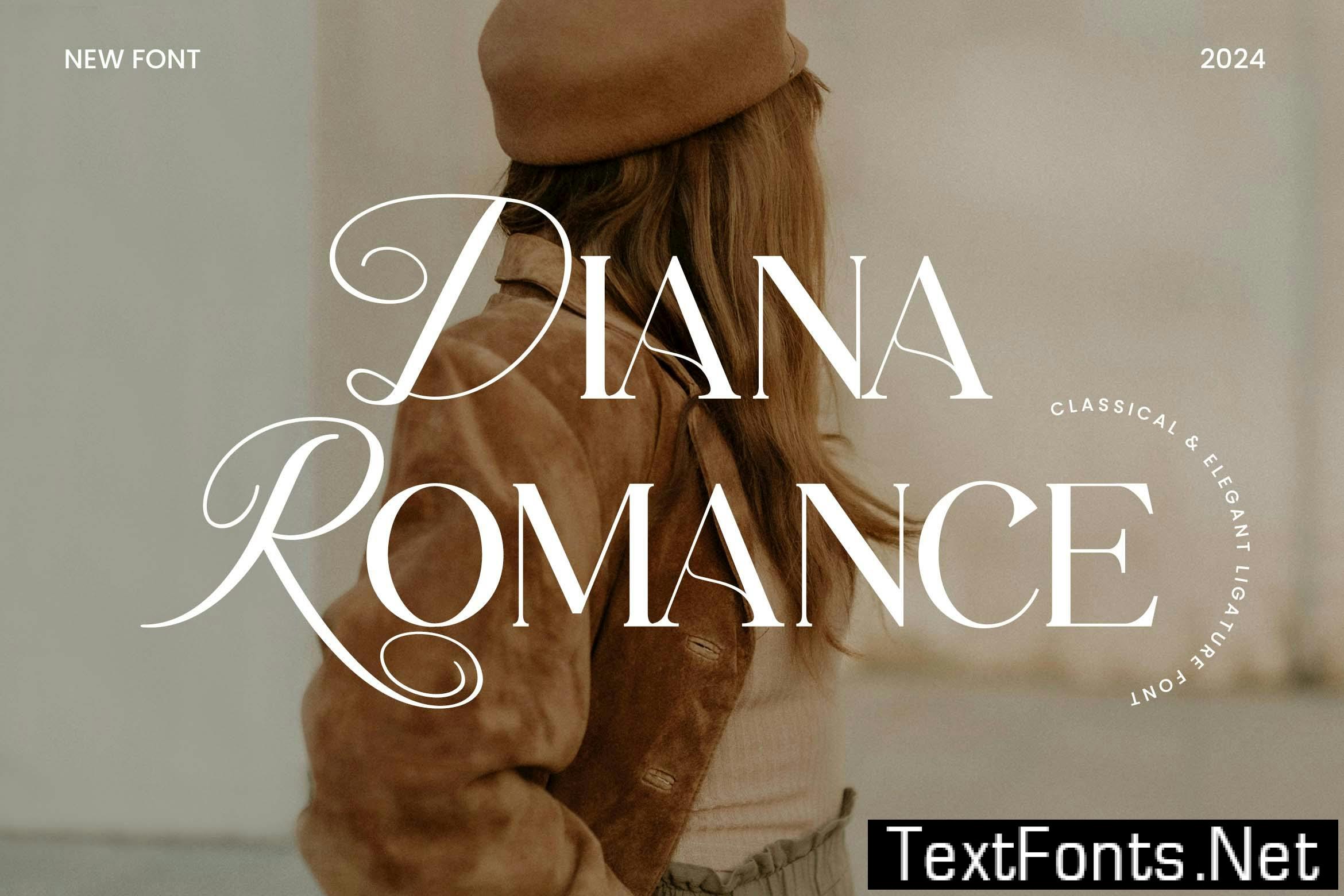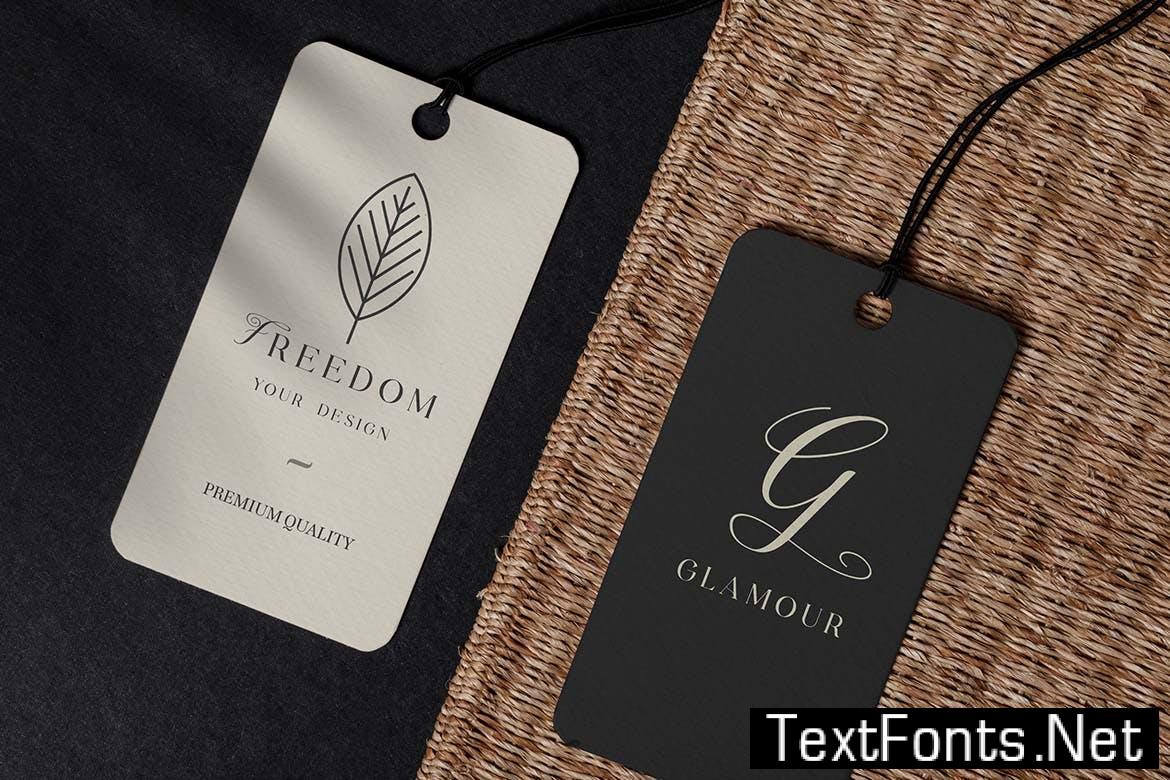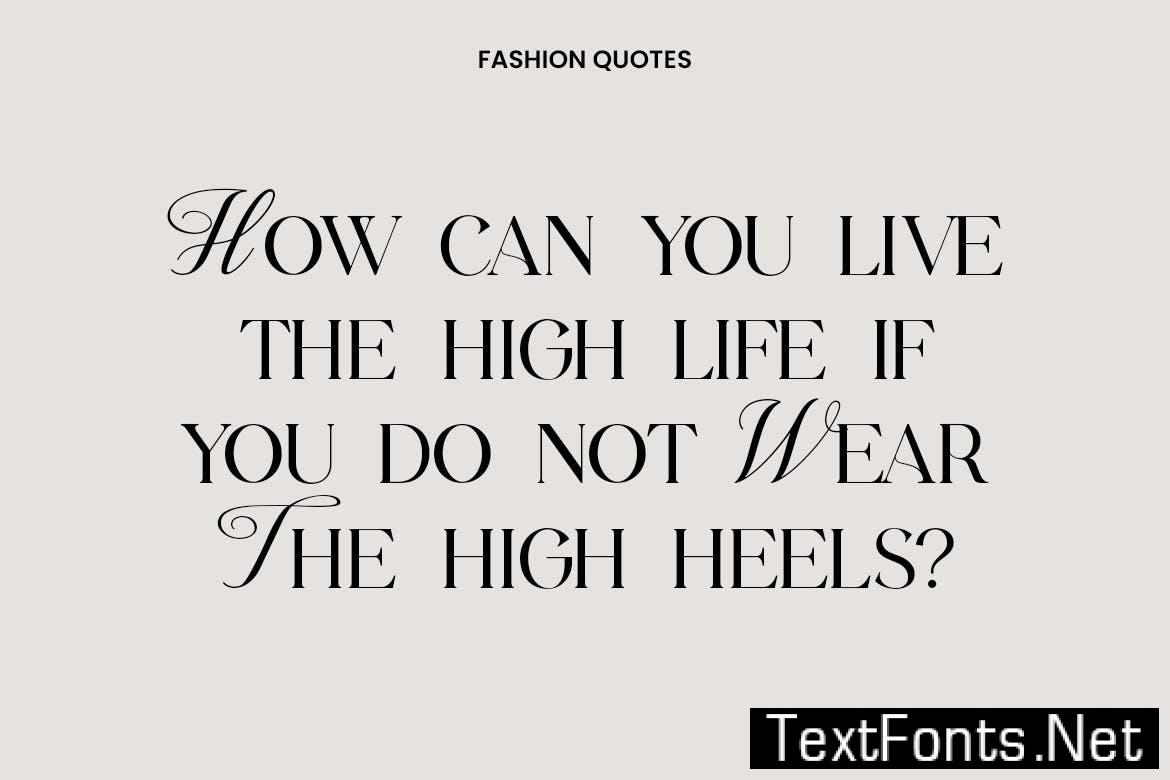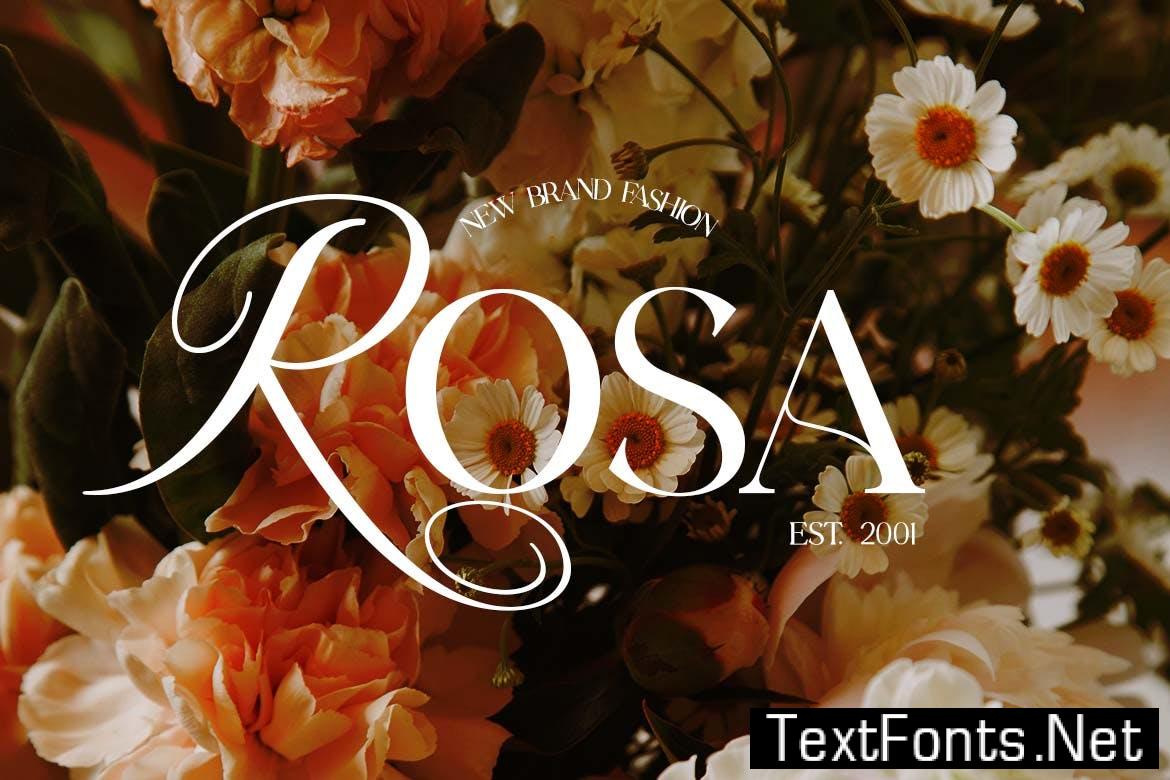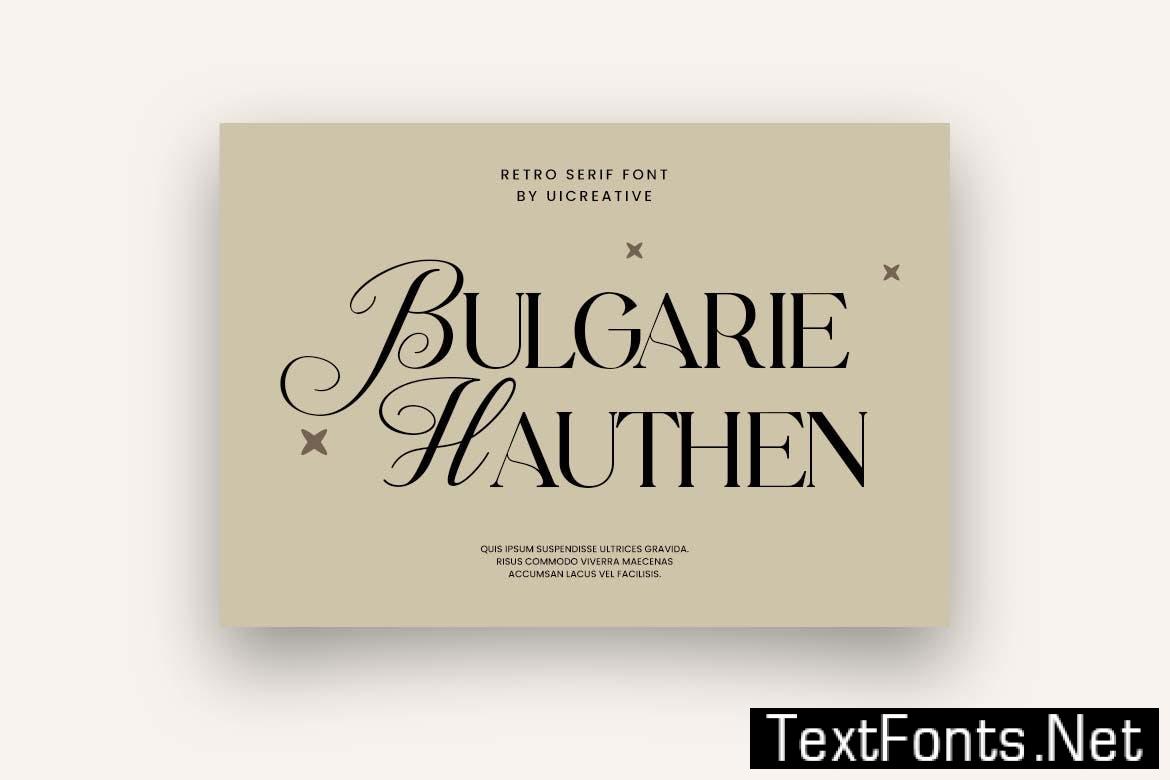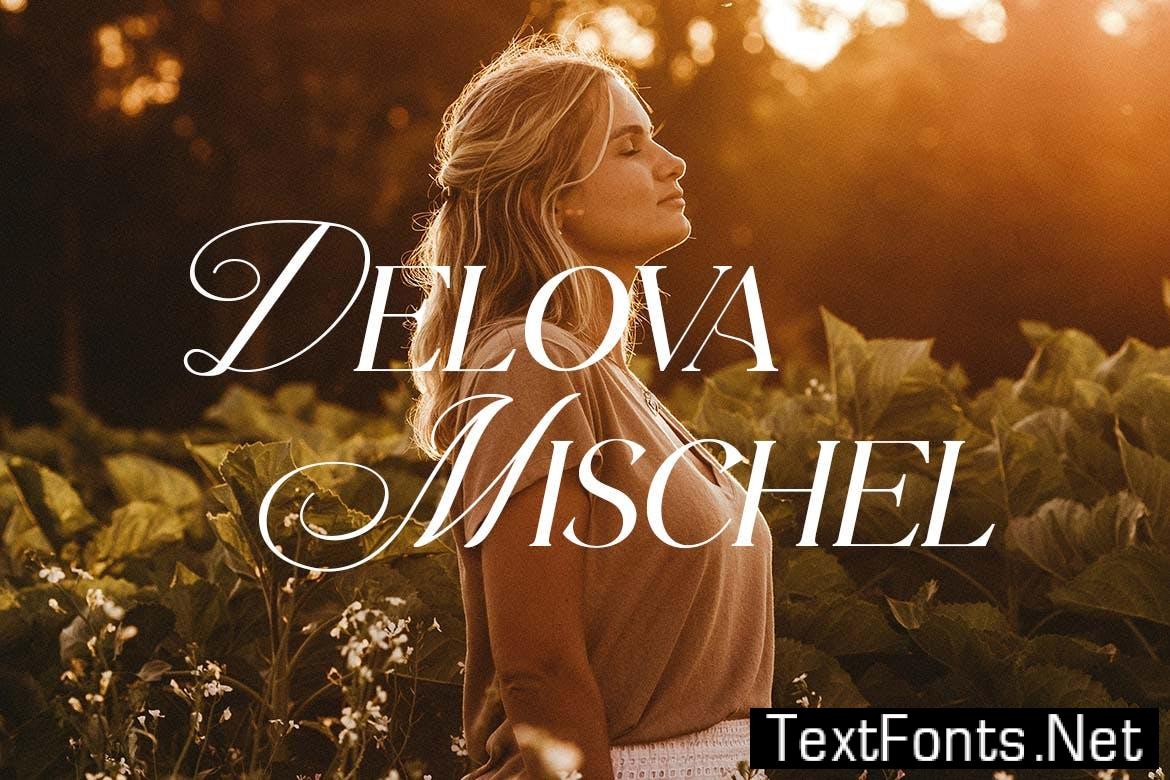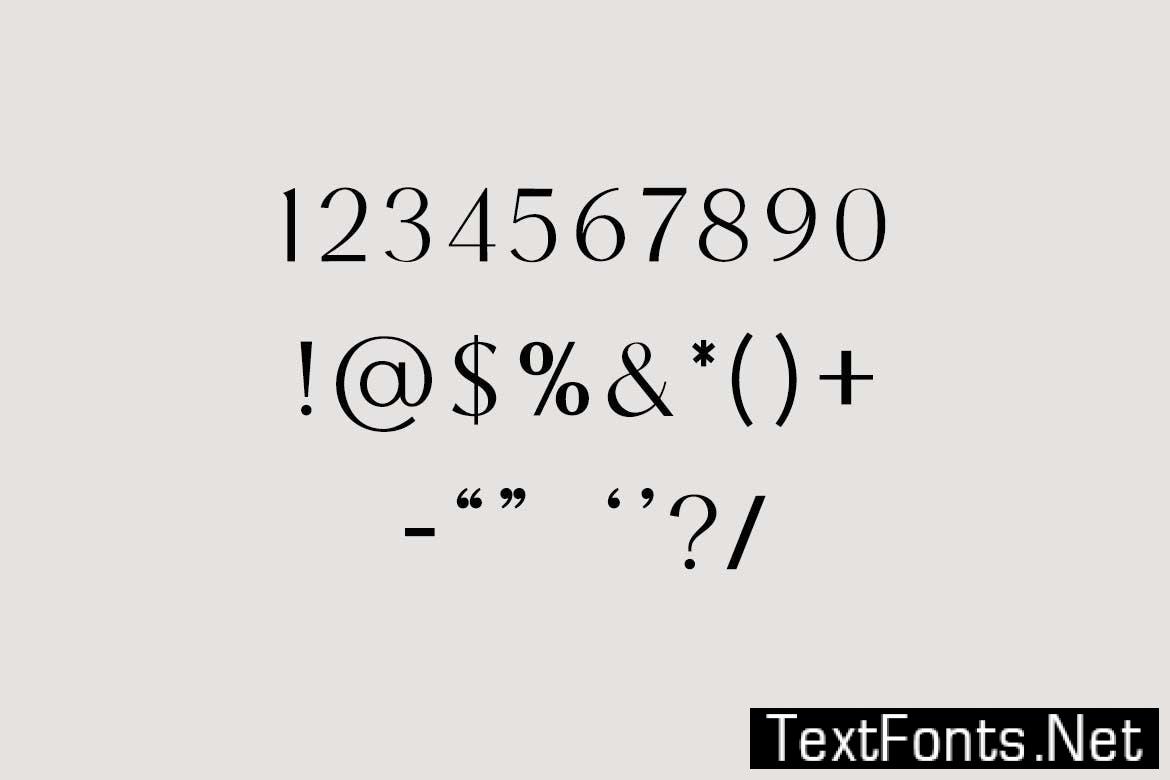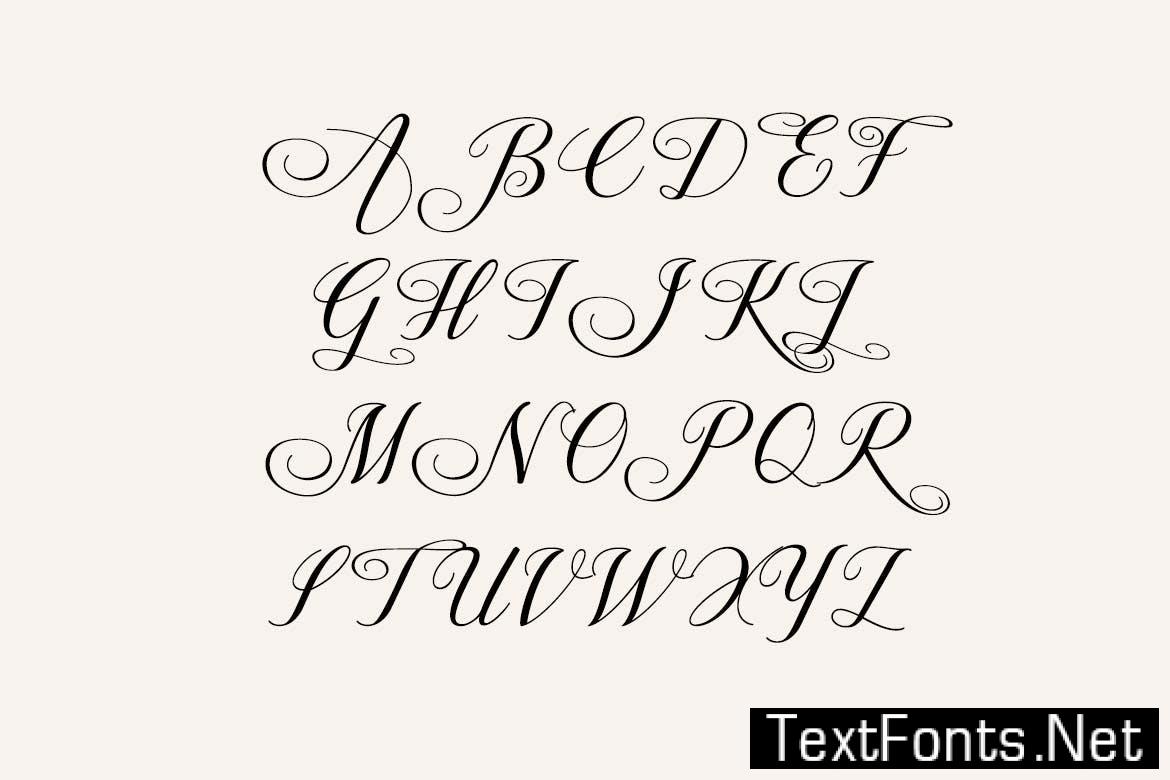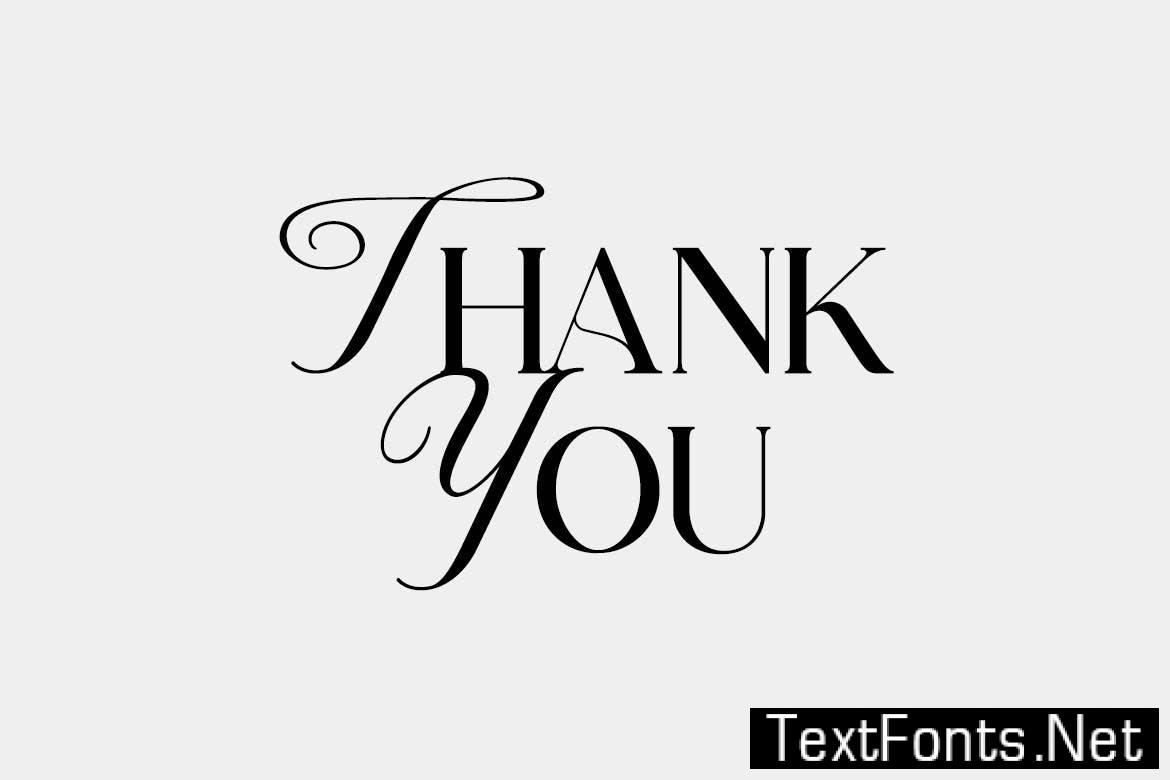
We are introducing our new product, named **Diana Romance Classical Elegant Serif Font**. Diana Romance Classical Elegant Serif Font that feels beautiful classy, elegant, and modern. This font is ideally suited for various projects, such as signature, stationery, logo, wedding, typography quotes, magazine or book covers, website headers, clothing, branding, packaging design, and more. Also, fashion-related branding or editorial design displays both masculine and feminine qualities.
**Supported Characters:**
* ABCDEFoHIJÁLMNOPQRSTUVWXYZ
* abcdefghijklmnopqrstuvwxyz
* 0123456789
* !”#$&'()*+,-./:;=?@[]_{|} ¡¢«»¿
* ÀÁÂÃÄÅÇÈÉÊËÌÍÎÏÑÒÓÔÕÖØÙÚÛÜÝ
* àáâãäåçèéêëìíîïñòóôõöøùúûüÿ
* ĀāĂ㥹ĆćĈĊċČčĎďĒēĔĕĖėĘęĚěĜĞğĠġĤĨĩĪī
* ĬĭİıĴĹĽľŁłŃńŇňŌōŎŏŔŘřŚśŜŞşŠšŤ
* ťŨũŪūŬŭŮůŴŶŸŹźŻżŽžǫ
* ȦɢɪɴʀʏʙʜʟᴀᴄᴅᴇᴊᴋᴍᴏᴘᴛᴜᴠᴡᴢẀẂẄẼỲ